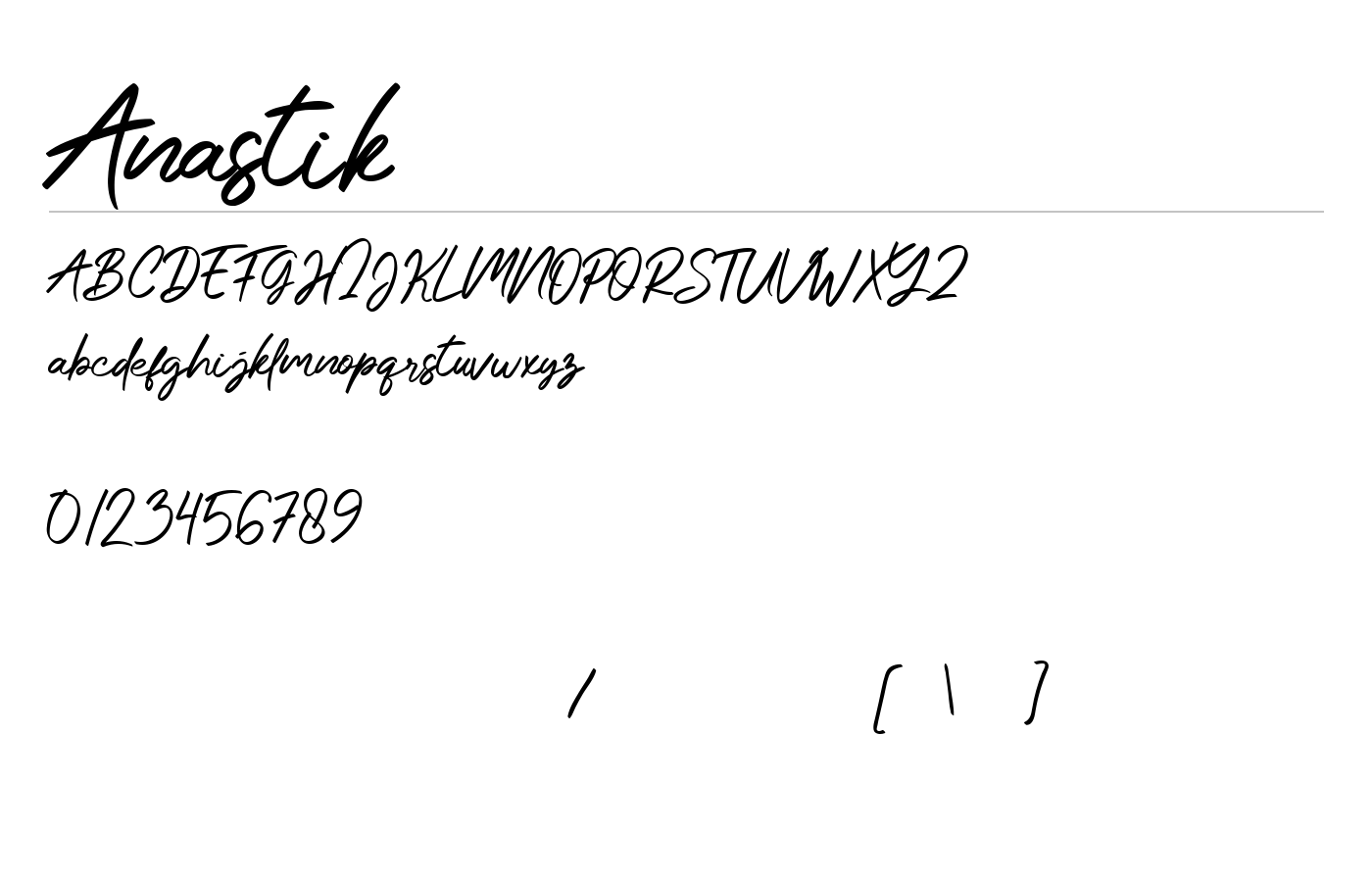
Anastik is a lively and elegant script font with a handwritten feel, showcasing fluid, slightly slanted letterforms that convey a casual yet refined personality. Its strokes are moderately varied in weight, giving it a natural flow without heavy contrast, making it perfect for branding, invitations, or any design needing a personal, stylish touch. This font works well in headlines, logos, and creative projects where warmth and approachability are desired.
Anastik Font